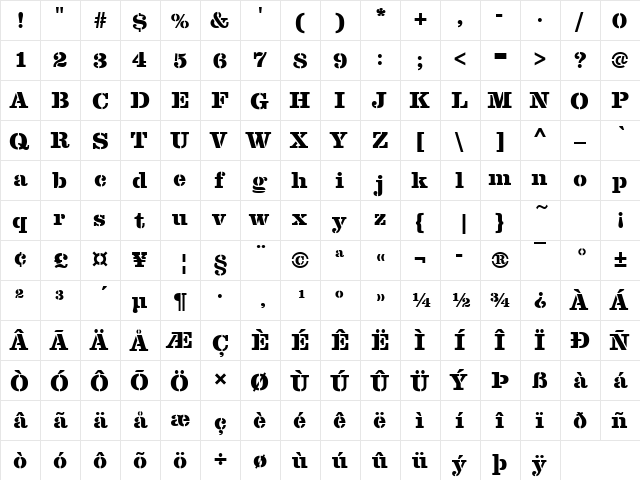
ClarendonSteDExtBol Regular
Design Context for ClarendonSteDExtBol Typeface
ClarendonSteDExtBol combines the readability of serif typography with the visual weight of a slab construction, resulting in a typeface that feels both authoritative and approachable.
Suited to magazines, political campaign materials, bold packaging, and any setting where authority matters.
Pro Tip: Use ClarendonSteDExtBol for headlines and subheadings where its slab serifs can make an impression. It also holds up well in mid-size body copy thanks to its sturdy construction.